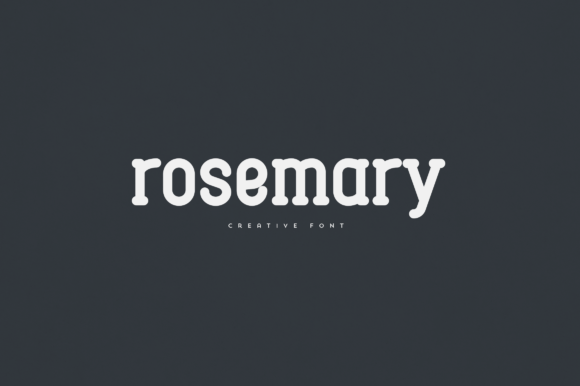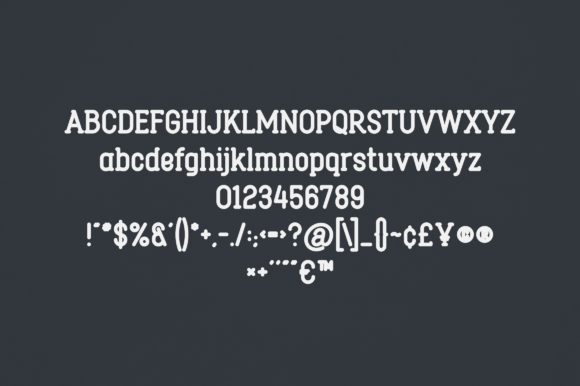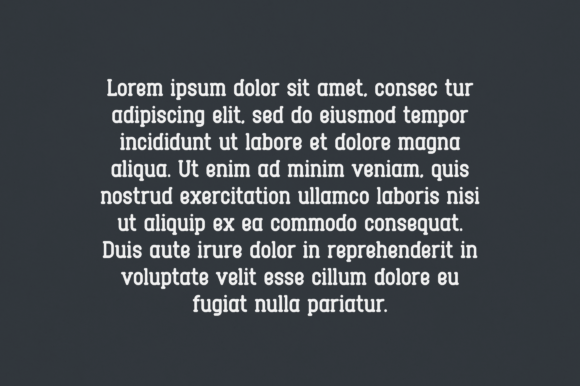
Rosemary Font
ROSEMARY FONT SPECIMEN
Rosemary is an elegant and versatile font that will make your typography truly unique! It will enchant every logo, branding, headline, or plain text!